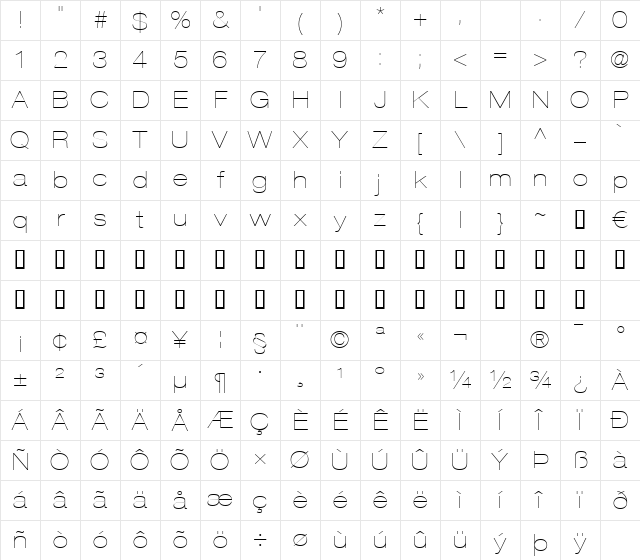
HelveticaNeue LT 23 UltLtEx Regular Free Font
HelveticaNeue LT 23 UltLtEx Regular
Design Context for HelveticaNeue LT 23 UltLtEx
HelveticaNeue LT 23 UltLtEx is a composed and adaptable typeface that performs quietly and consistently across a wide range of design contexts. Its slender proportions lend an understated elegance to any composition.
Pro Tip: Use HelveticaNeue LT 23 UltLtEx in both headline and body roles to test its range before committing to a single application.